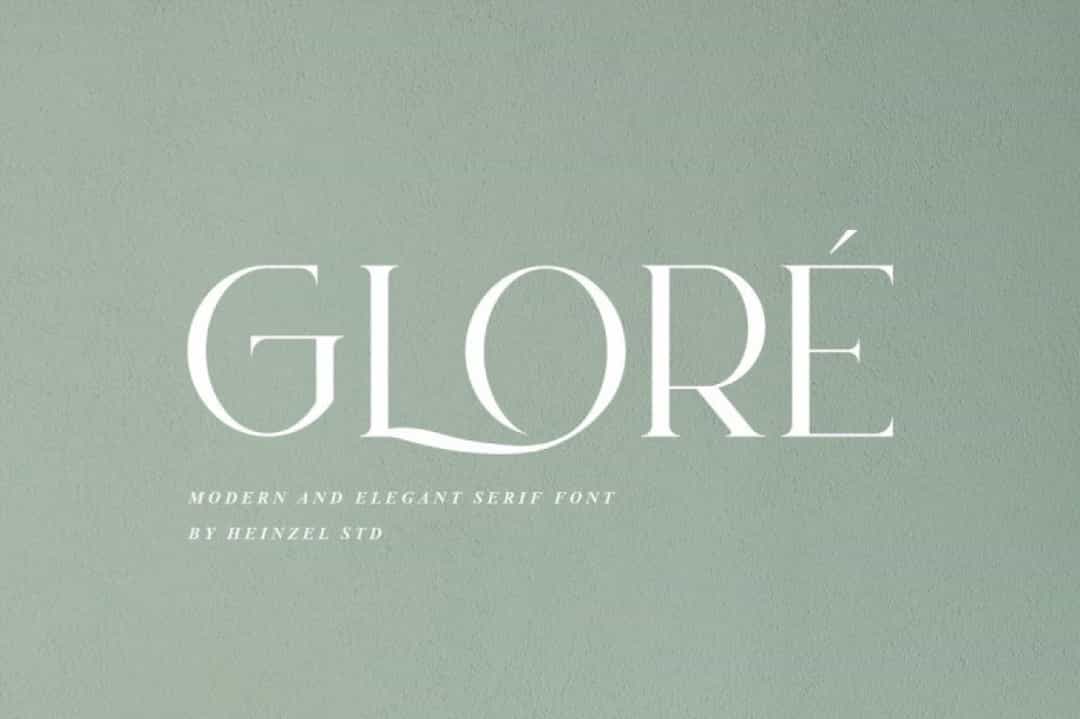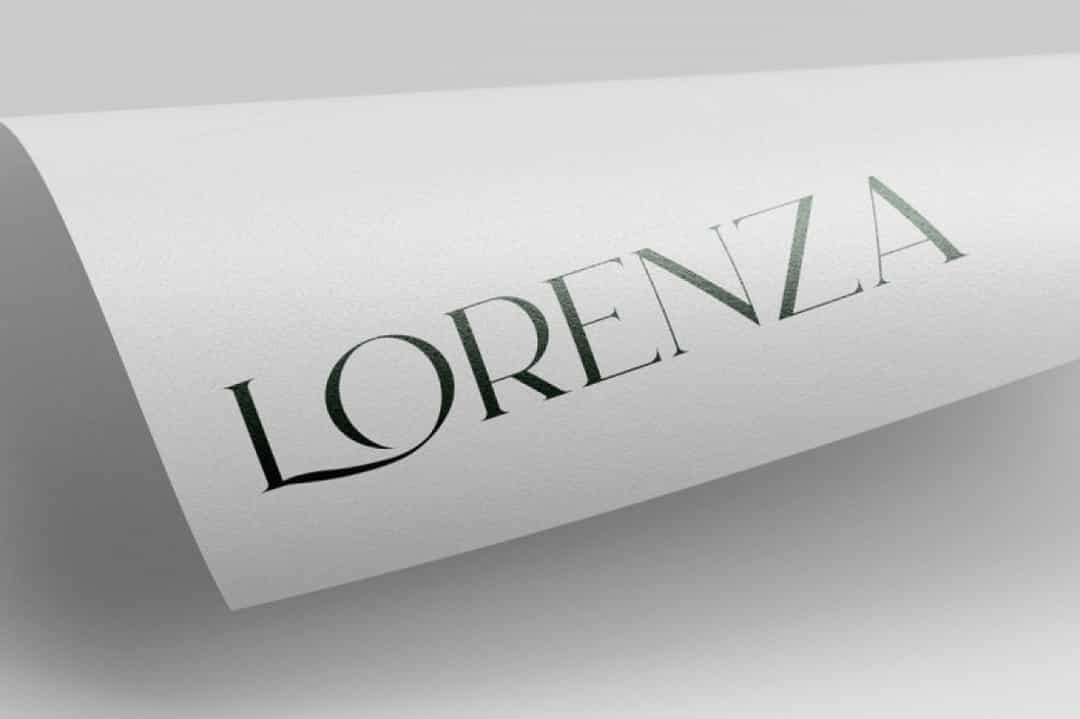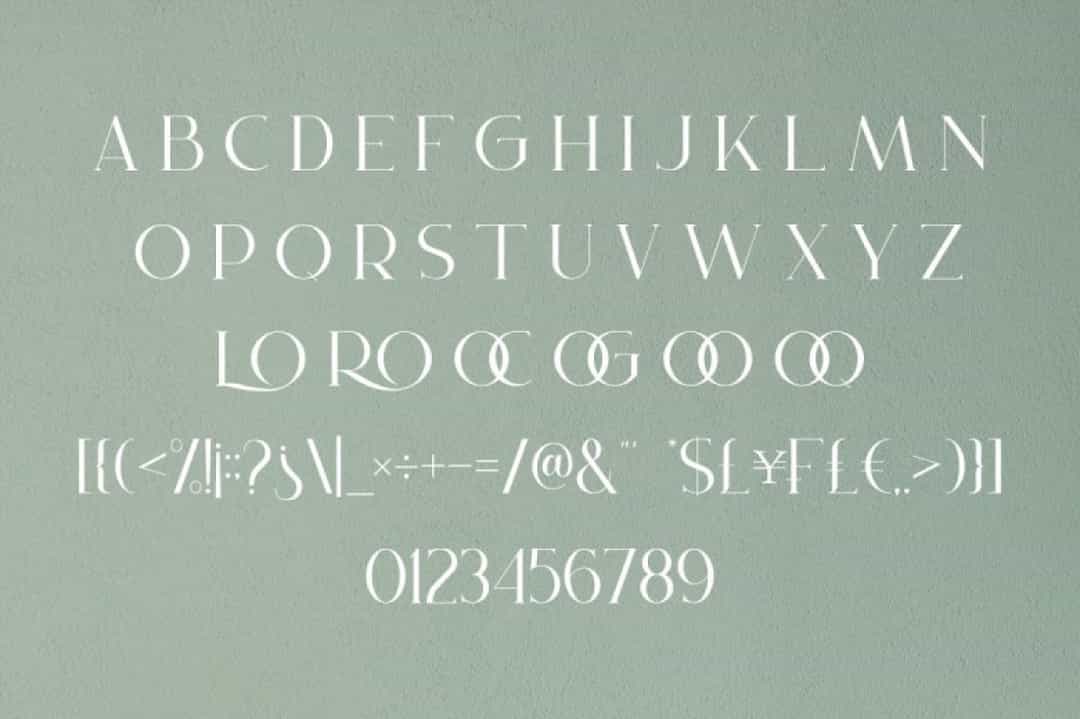
Discover Gloré Font, part of the Serif collection—a versatile and unique font perfect for adding a personal touch to your projects. Download it for free and enjoy crafting designs with style, from invitations to social media posts. This font is available exclusively for personal use, giving you the freedom to create without limits. Unlock your creativity with Gloré Font today!
Glore Serif Font is an elegant modern and contemporary serif typeface, ideal for creating beautiful wedding invitations, stationary items and posts on social media! Additionally, this typeface is PUA encoded so you’ll easily be able to access all it’s stunning characters and ligature!